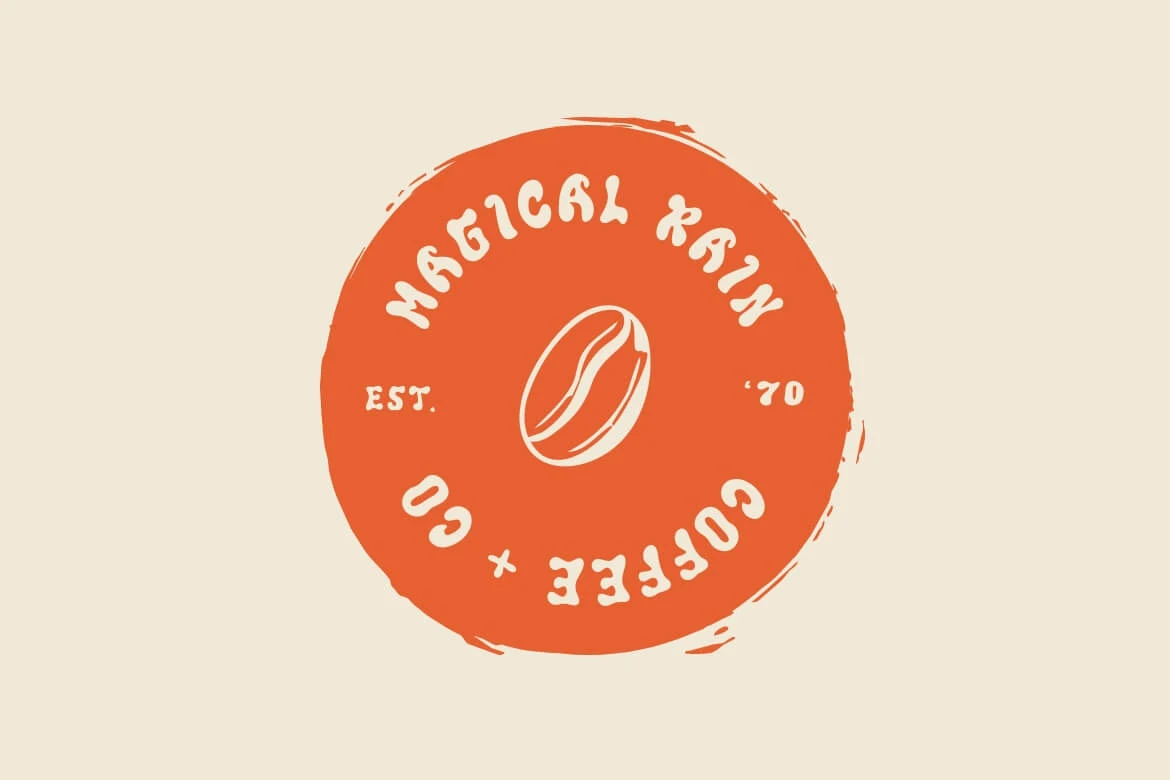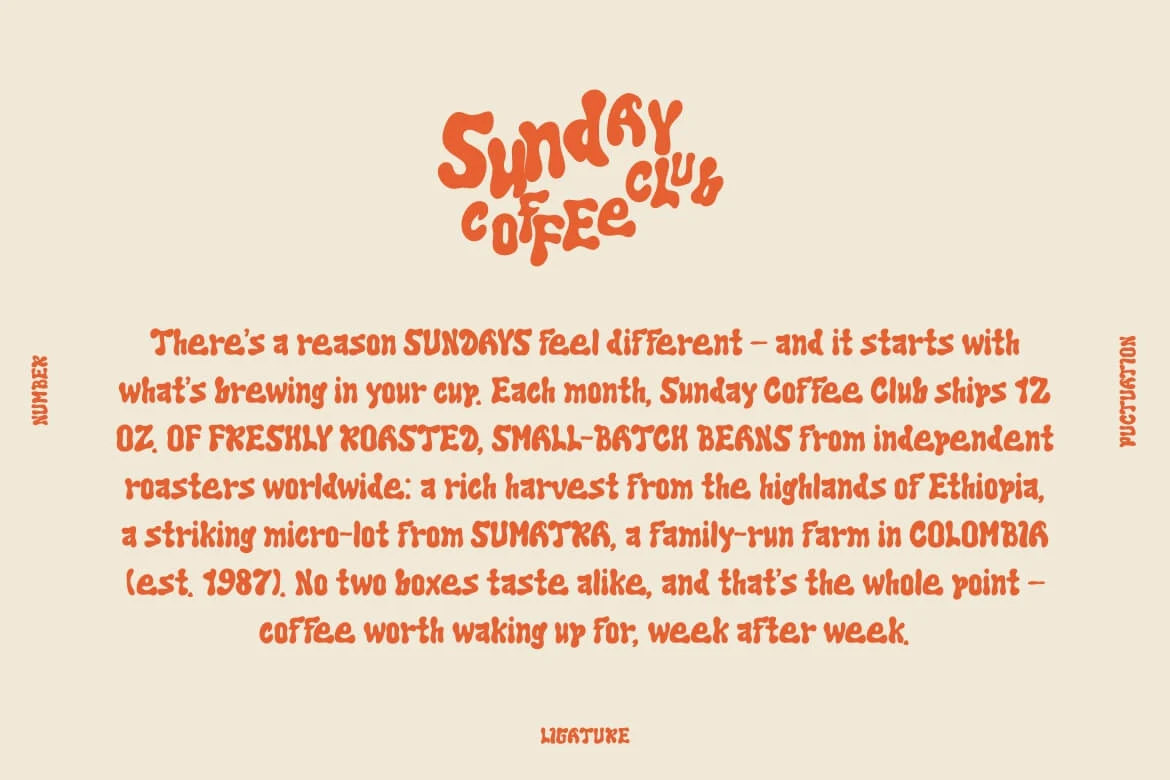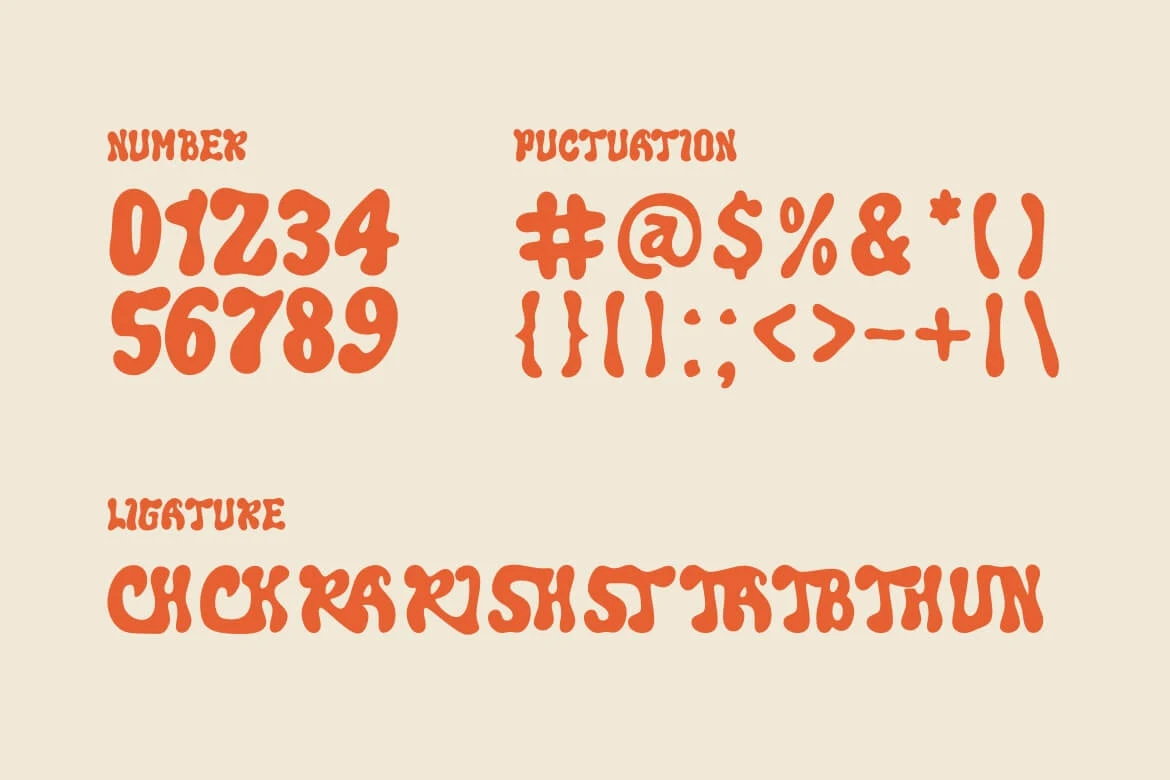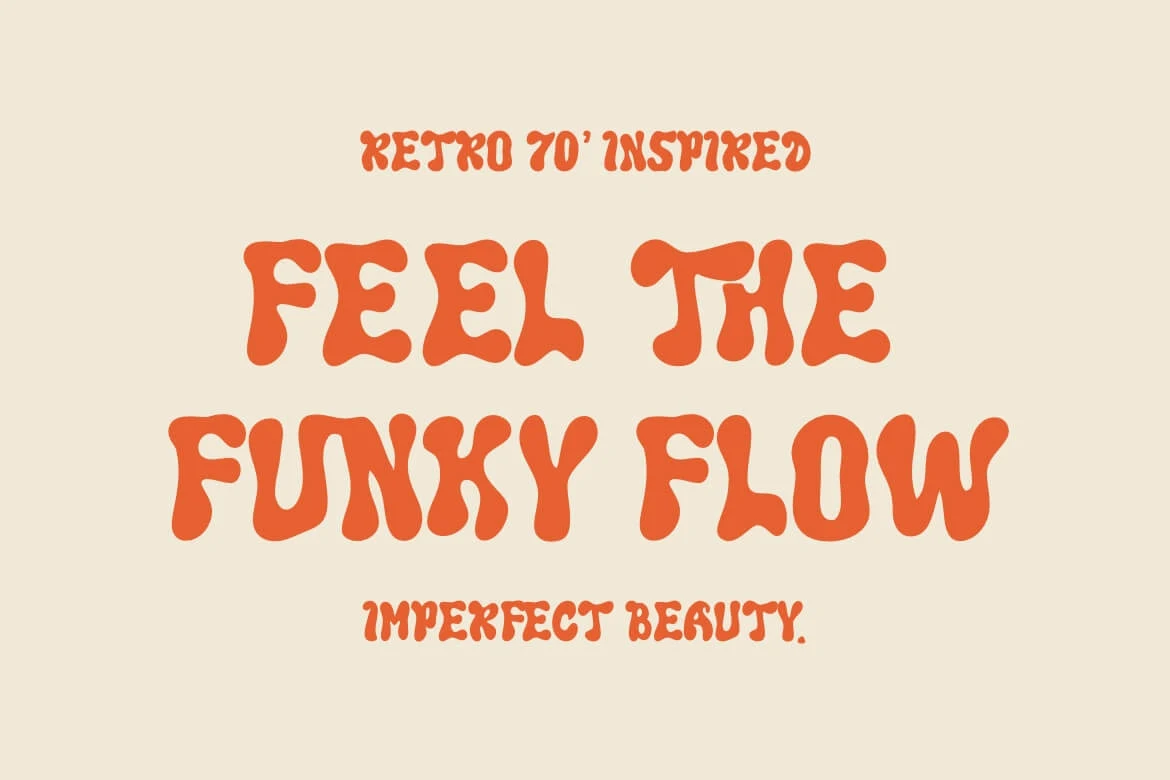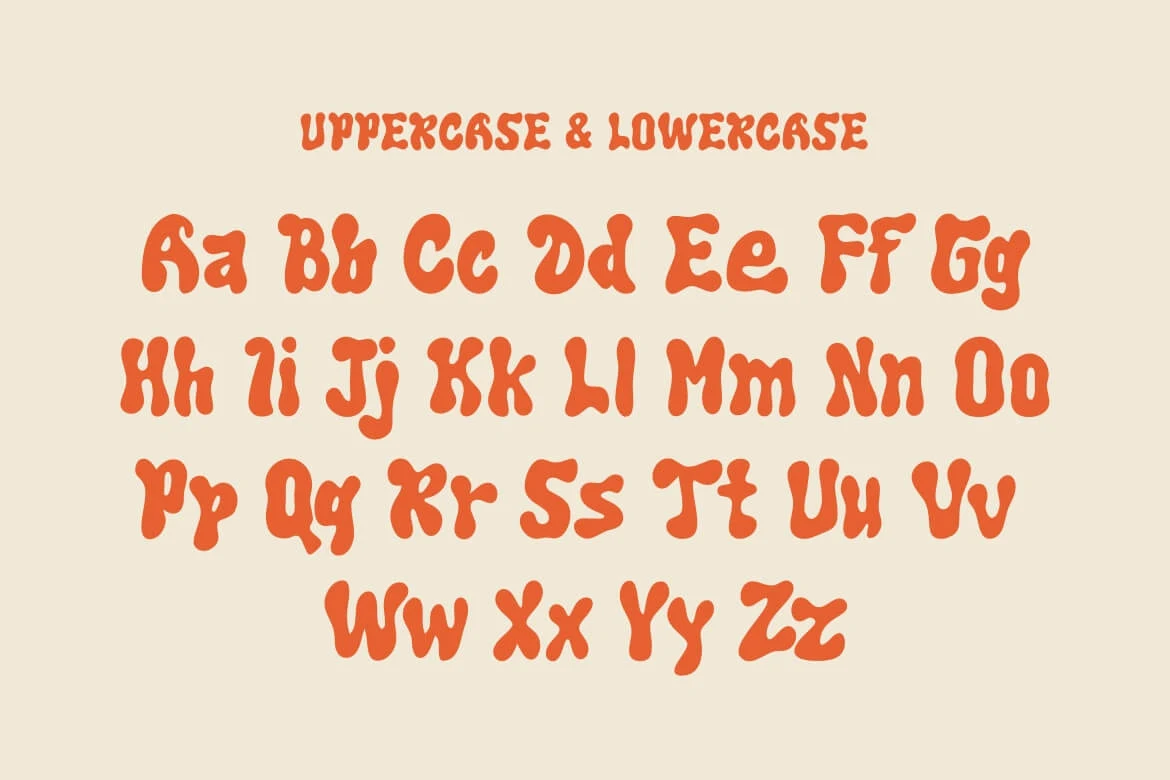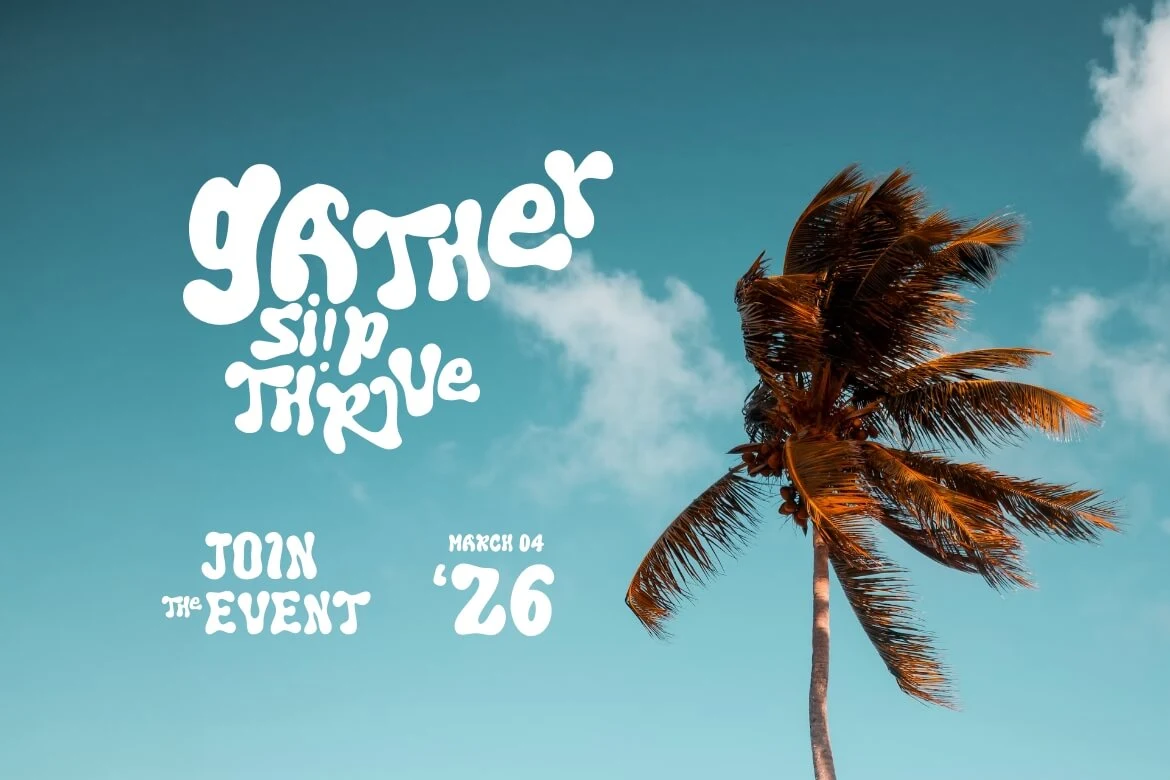
Wobble Root
Wobble Root is a bold display font inspired by fluid, organic shapes and 1970s psychedelic design. Its thick strokes melt naturally into one another, creating a rhythmic, groovy flow that brings character and playful movement to any layout.
It is well-suited for retro poster headlines, vintage apparel graphics, festival artwork, botanical packaging, and album art. The rounded, expressive letterforms carry a nostalgic charm without sacrificing visual clarity, making it easy to create bold statements that feel free and grounded.